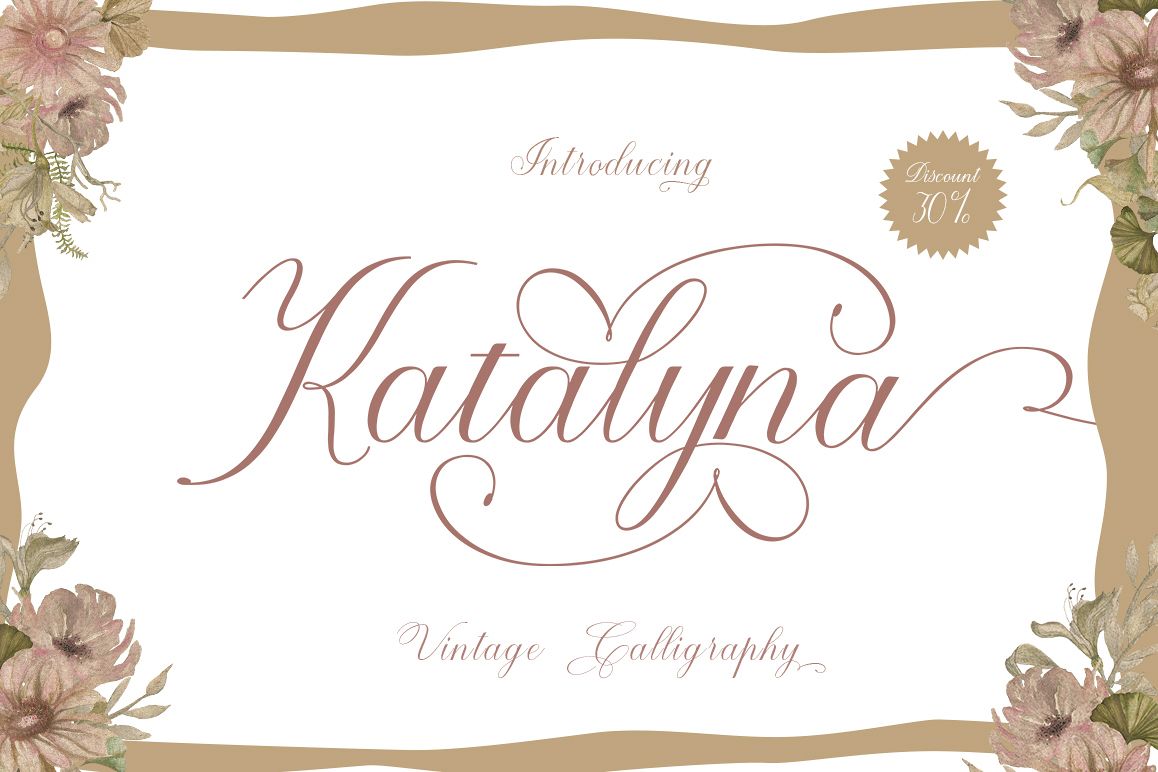
Katalyna Script
Katalyna Script is a calligraphy script font that comes with beautiful alternative characters. a mixture of copper calligraphy with handleting style. Designed to bring style elegance. Katalyna Script attracts such a subtle, clean, feminine, sensual, glamorous, simple and very readable typeface. The classic style is perfect to apply in various formal forms such as invitations, labels, menus, Logos, fashion, make up, stationery, letterpress, romantic novels, magazines, books, greeting / wedding cards, packaging, labels.Katalyna Script has 443 glyphs. including multiple language support. With OpenType features with stylish alternatives, ligatures and characters, allowing you to mix and match pairs of letters to fit your design, as well as a touch of ornament to make this font look elegant.Files include:Katalyna Script (OTF, TTF)To enable OpenType Stylistic alternates, you need a program that supports OpenType features like Adobe Illustrator CS, Adobe Indesign & CorelDraw X6-X7, Microsoft Word 2010 or later. (Windows), Font Book (Mac) or software programs such as PopChar (for Windows and Mac).How to access all the alternate characters using Adobe Illustrator: